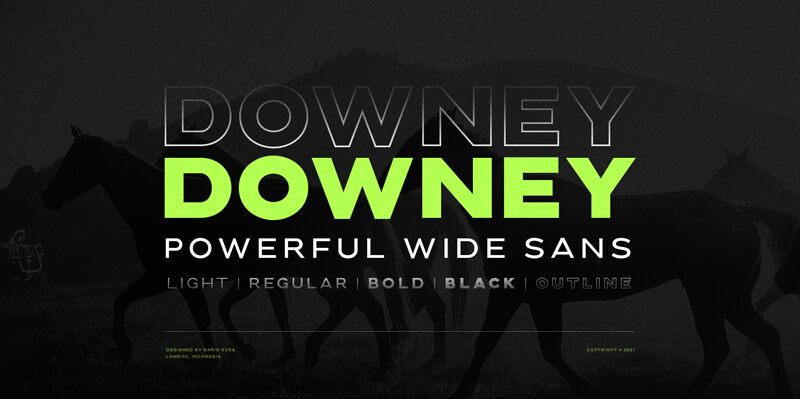
Downey, crafted by the talented Saridezra, stands out with its semi-light sans serif style that exudes a modern and clean aesthetic. Its sleek lines and open forms convey a sense of clarity and simplicity, making it instantly appealing for contemporary design projects. The font's balanced proportions suggest a friendly yet professional tone, ideal for both digital platforms and print media.
The Downey font’s versatility is evident in its ability to adapt to various creative endeavors. From branding to editorial design, its legible and uncluttered appearance ensures that it can elevate the visual impact of any message without overwhelming the content. Whether you're aiming for minimalist elegance or efficient communication, Downey offers an air of sophistication that can seamlessly integrate with your project's vision.